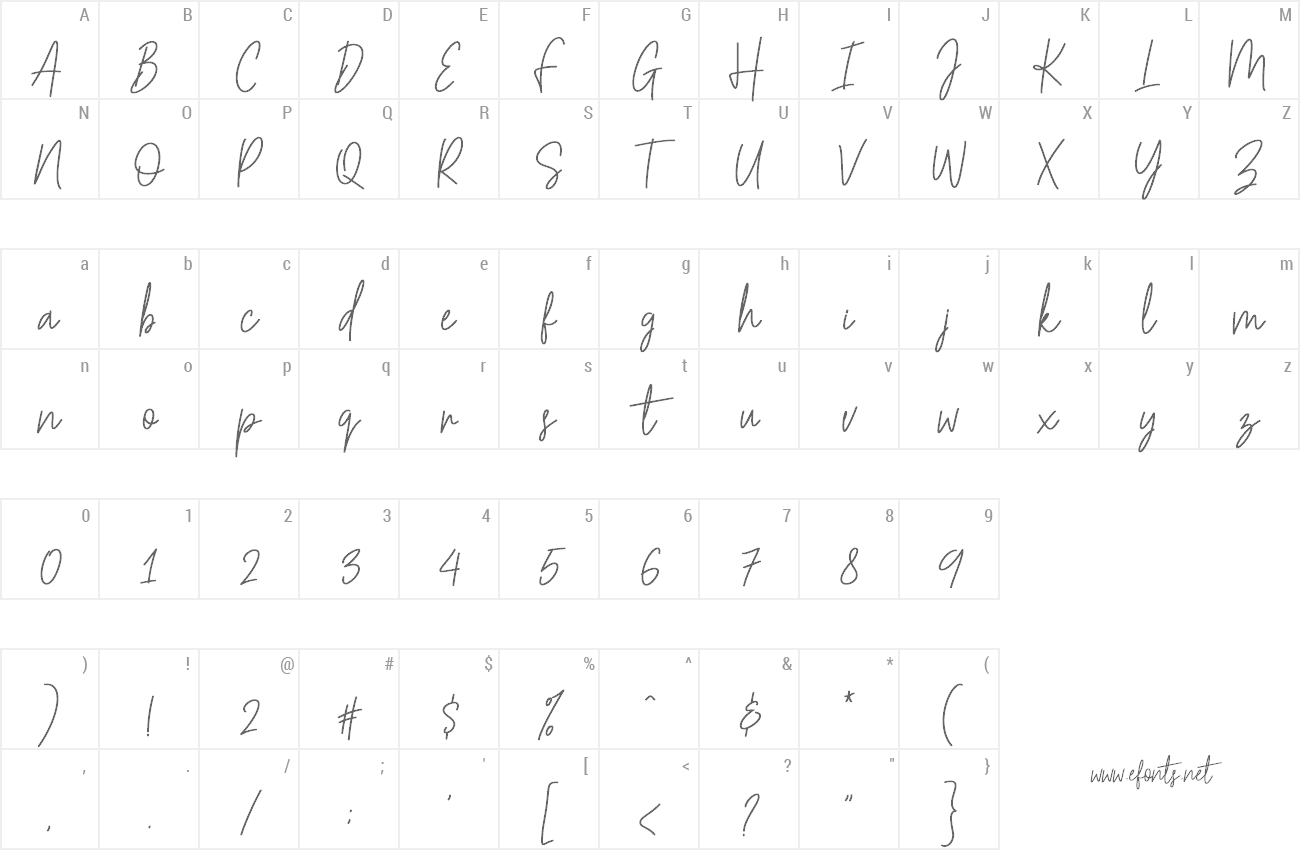
hesterica is a simple script typeface which is simple and funny. Good for Logos, Titles, Tees Design or Indie flyer and Poster. This is Free For Personal Use. To get a full font with Commercial licences, please download from here: https://crmrkt.com/2VwdGz Full version comes with alternates and ligatures ! Note: All my fonts are not allowed for Porn/Sex content. for more questions, please email me : windestrian@gmail.com Thanks |